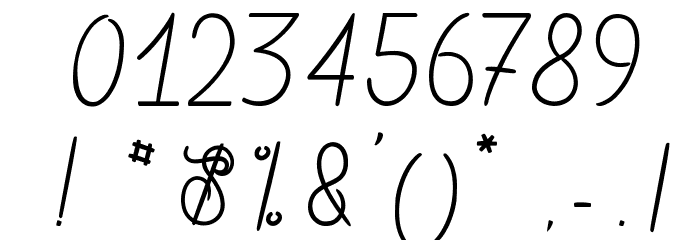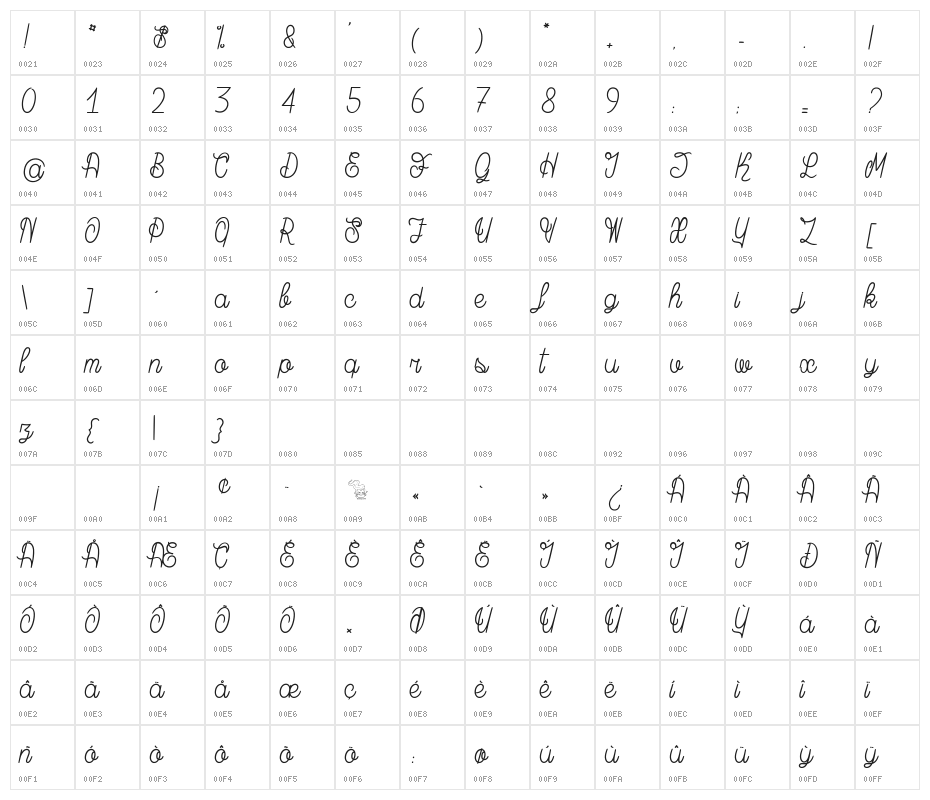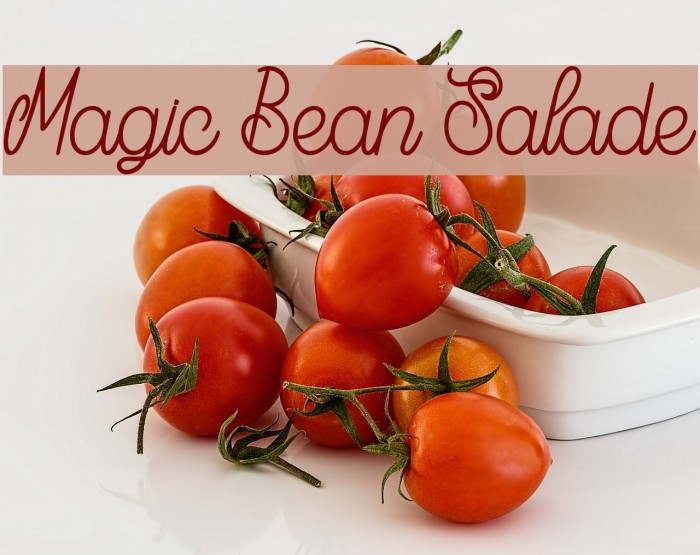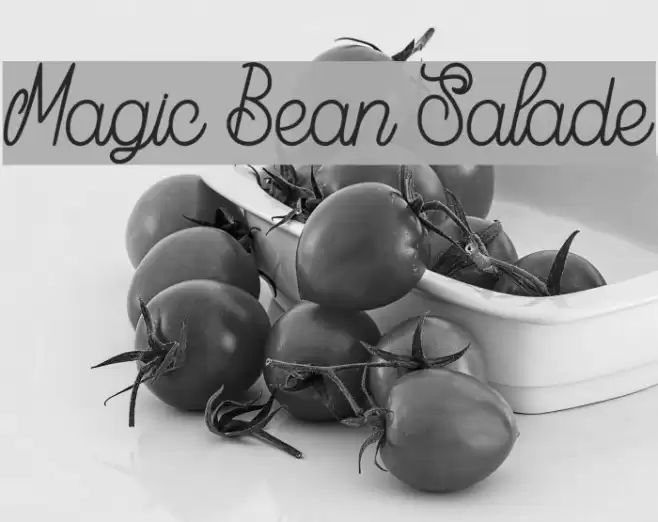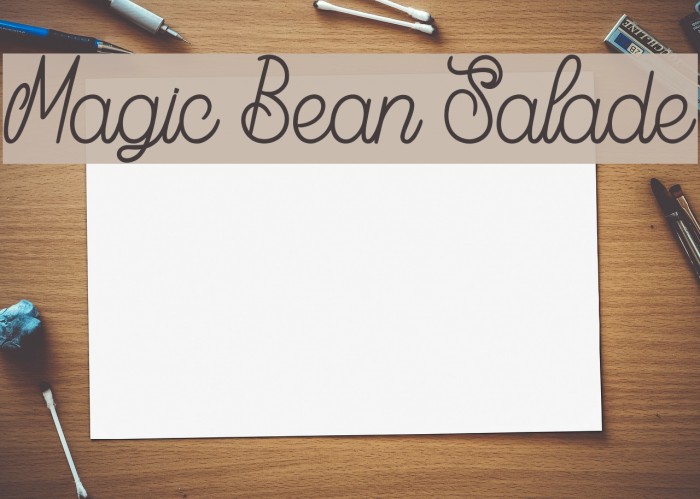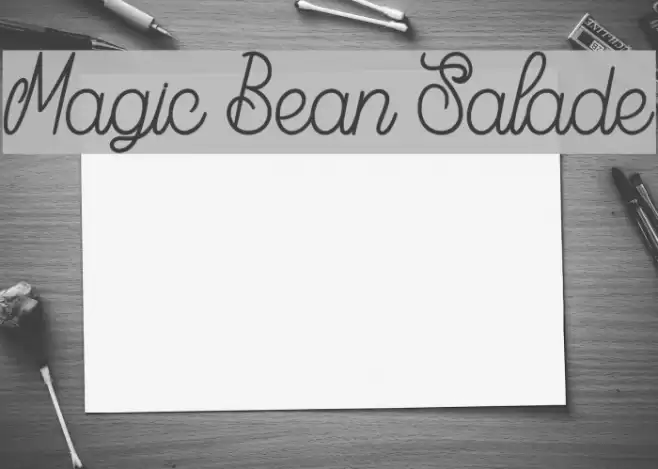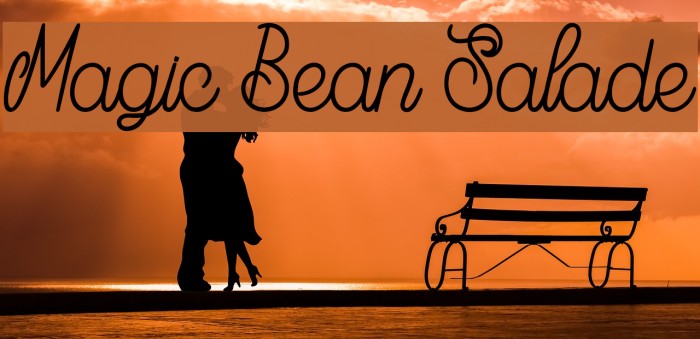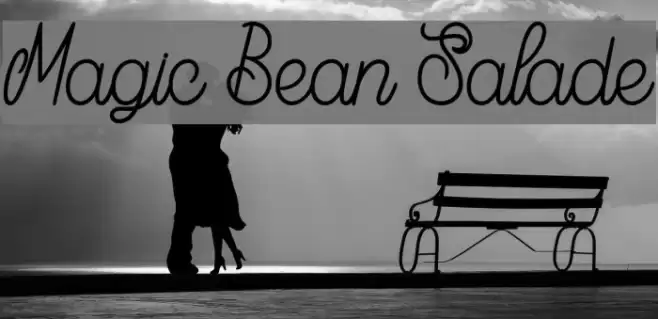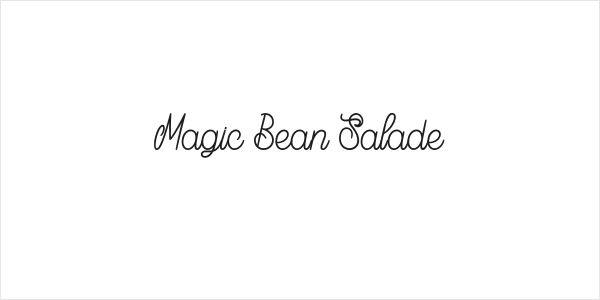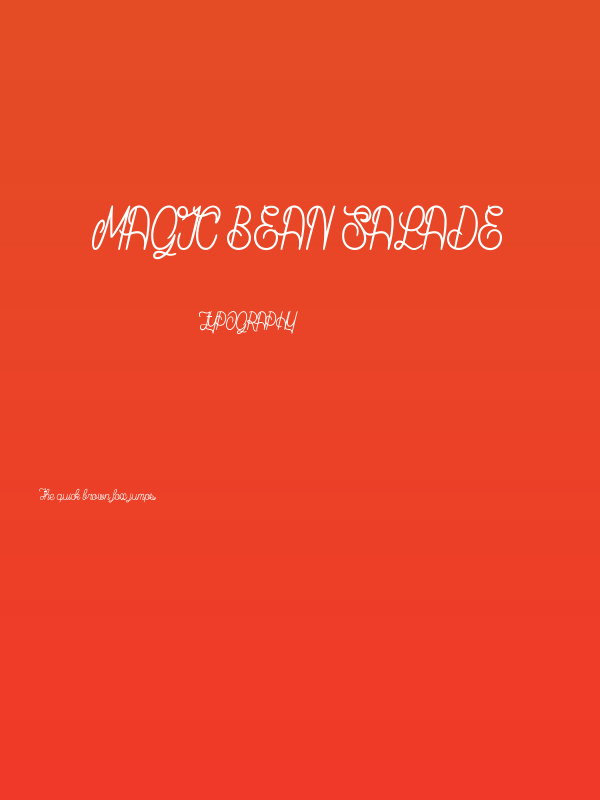
Magic Bean Salade Font
Magic Bean Salade Description
This font features a playful and whimsical script style, characterized by its flowing, interconnected letters that mimic the fluidity of handwriting. The uppercase letters are bold and expressive, with unique loops and curves that add a sense of movement and energy. The lowercase letters maintain a consistent style, offering a harmonious blend with the uppercase. Numbers and special characters are crafted with the same attention to detail, ensuring a cohesive look across all elements. The font's overall appearance is both elegant and approachable, making it suitable for a variety of creative applications.
Use CaseLogos, Invitations, Greeting Cards
Proposed ProjectsIdeal for greeting cards, invitations, branding, and creative projects that require a personal touch.